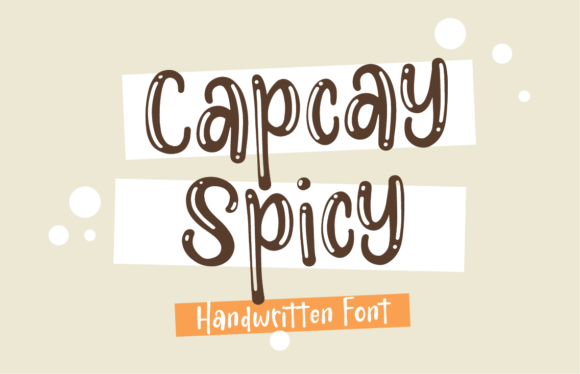
Introducing Capcay Spicy Font: The Quirky and Relaxed Display Font You Need!
Are you tired of using the same old fonts in your designs? Do you want to add a touch of personality and whimsy to your creations? Look no further than Capcay Spicy Font! This quirky and relaxed display font is perfect for designers and crafters looking to elevate their work and make it stand out from the crowd.
What is Capcay Spicy Font?
Capcay Spicy is a unique and eye-catching display font that is sure to capture attention. With its playful and laid-back vibe, this font is perfect for a wide range of design projects, from branding and advertising to packaging and social media graphics. Whether you’re creating a fun and quirky logo or a bold and statement-making headline, Capcay Spicy Font is the perfect choice.
Why You’ll Love Capcay Spicy Font
So, what makes Capcay Spicy Font so special? Here are just a few reasons why you’ll love adding this font to your library:
- Versatility: Capcay Spicy Font is incredibly versatile, making it perfect for a wide range of design projects. Whether you’re working on a logo, brochure, or social media graphic, this font will help you create a cohesive and stylish look.
- Personality: This font has a ton of personality! Its quirky and relaxed vibe is sure to add a touch of whimsy to your designs and make them stand out from the crowd.
- Enhance any creation: Whatever the topic or theme of your design, Capcay Spicy Font has the potential to enhance it. From playful and fun designs to more serious and professional ones, this font will help you create something truly special.
How to Use Capcay Spicy Font
Using Capcay Spicy Font is easy! Here are a few tips to get you started:
- Pair with other fonts: Capcay Spicy Font pairs perfectly with other fonts, especially clean and simple ones. Try pairing it with a sans-serif font for a bold and eye-catching look.
- Experiment with colors: This font looks amazing in a wide range of colors! Try experimenting with different colors and gradients to find the perfect look for your design.
- Play with sizes: Capcay Spicy Font looks great in a variety of sizes, from large and bold to small and subtle. Experiment with different sizes to find the perfect fit for your design.
Who is Capcay Spicy Font for?
Capcay Spicy Font is perfect for a wide range of designers and crafters, including:
- Graphic designers: Whether you’re working on a logo, brochure, or social media graphic, Capcay Spicy Font is a great addition to your font library.
- Branding experts: If you’re looking to create a unique and memorable brand identity, this font is a great choice.
- Crafters: Whether you’re creating handmade cards, scrapbooking pages, or other crafts, Capcay Spicy Font is a great way to add a personal touch.